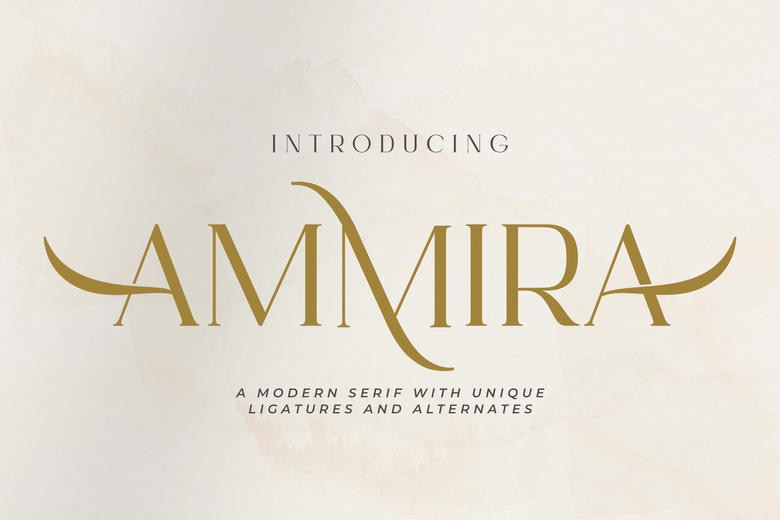
Ammira Font
Ammira is a stylish and beautiful serif type with peculiar alternates and ligatures. The font is ideal in a casual and elegant design work, as in logos, branding, business cards, and invitations just to mention a few.
Ammira is simple to operate and multi-purpose and will make your designs appear new and elegant. The graceful curves and the clean lines of the font make it the best to use in fashion, beauty, and lifestyle designs.
Ammira Serif Font